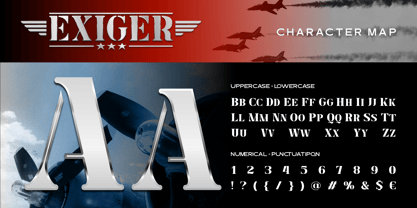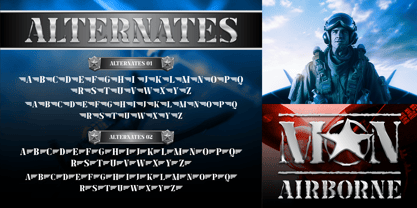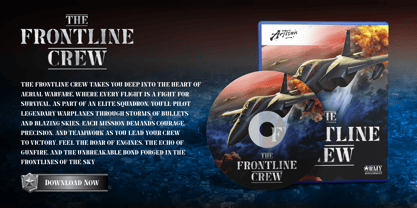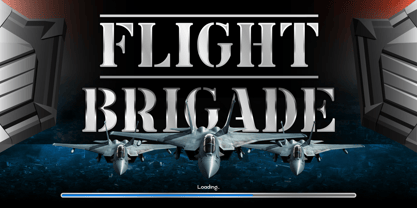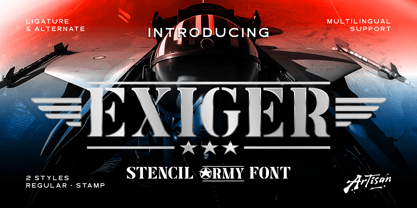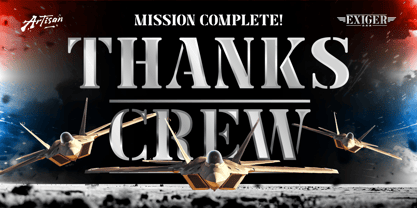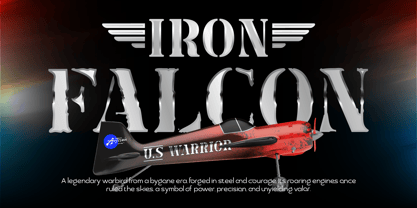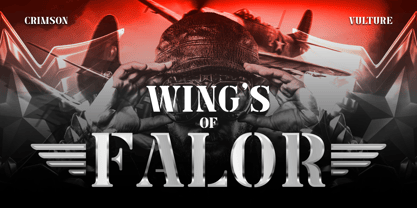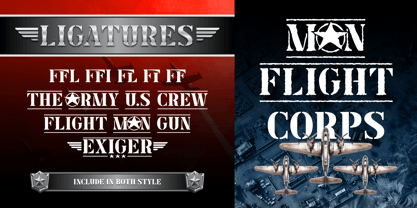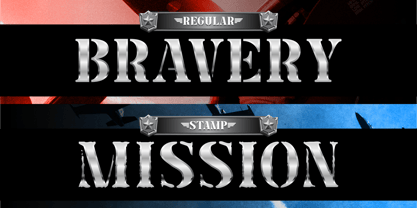
Exiger
by Artisan Themes
The Exiger Font Family was designed by Meidy Meichico and published by Artisan Themes. Exiger contains 2 styles and family package options. More about this family
Introducing Exiger, inspired by the markings on fighter jets, ammunition crates, and tactical aircraft panels, this font carries the bold authority of military engineering. Every line, cut, and shape is built with purpose — sharp, structured, and unapologetically strong. Designed with authentic stencil detailing, Exiger brings instant military attitude to any visual. Whether you're working on aviation posters, tactical game interfaces, war-inspired branding, or rugged graphics — this font delivers the tone: fearless, commanding, and ready for action. Exiger comes in 2 powerful styles — Regular and Stamp. The Regular version offers a clean, sharp execution for official markings and modern layouts, while the Stamp style adds a raw, worn texture. Perfect for vintage army posters, field labels, and distressed tactical aesthetics. Features: A - Z set (Uppercase & Lowercase), Number, Punctuation, Alternate, Ligature, Multilingual
Designers: Meidy Meichico
Foundry: Artisan Themes